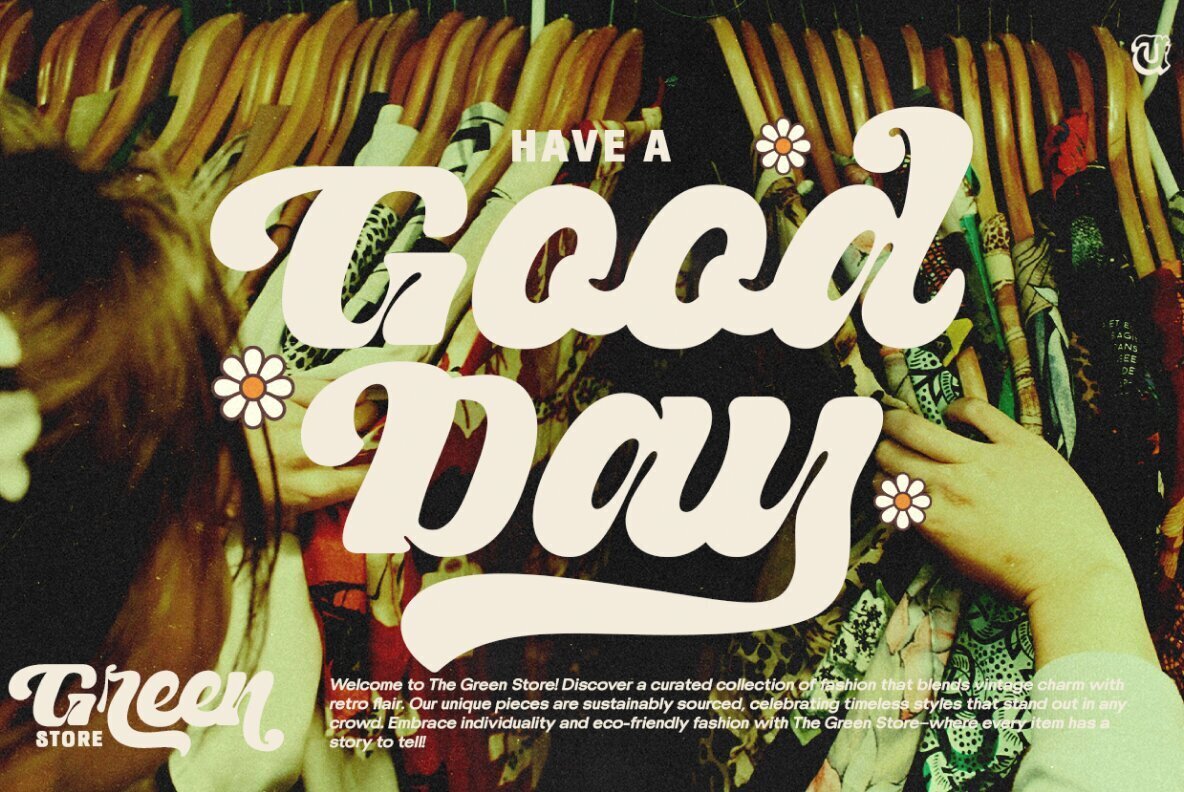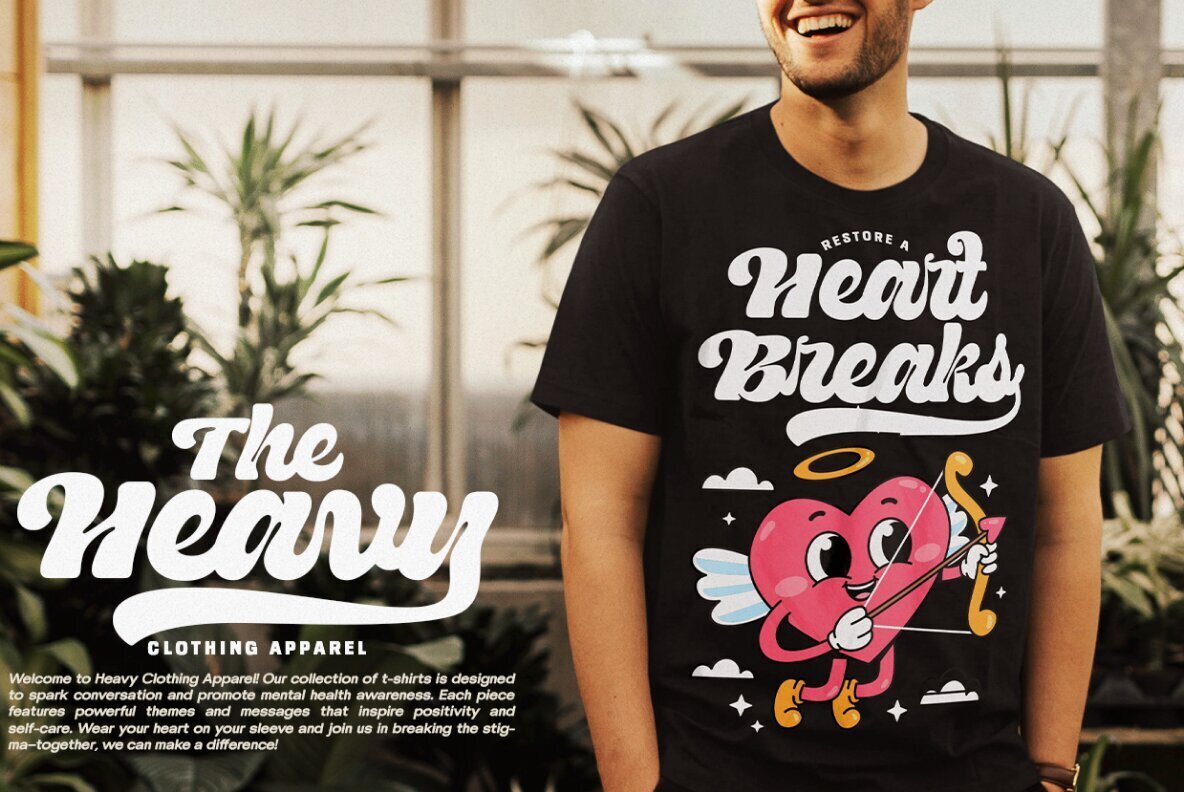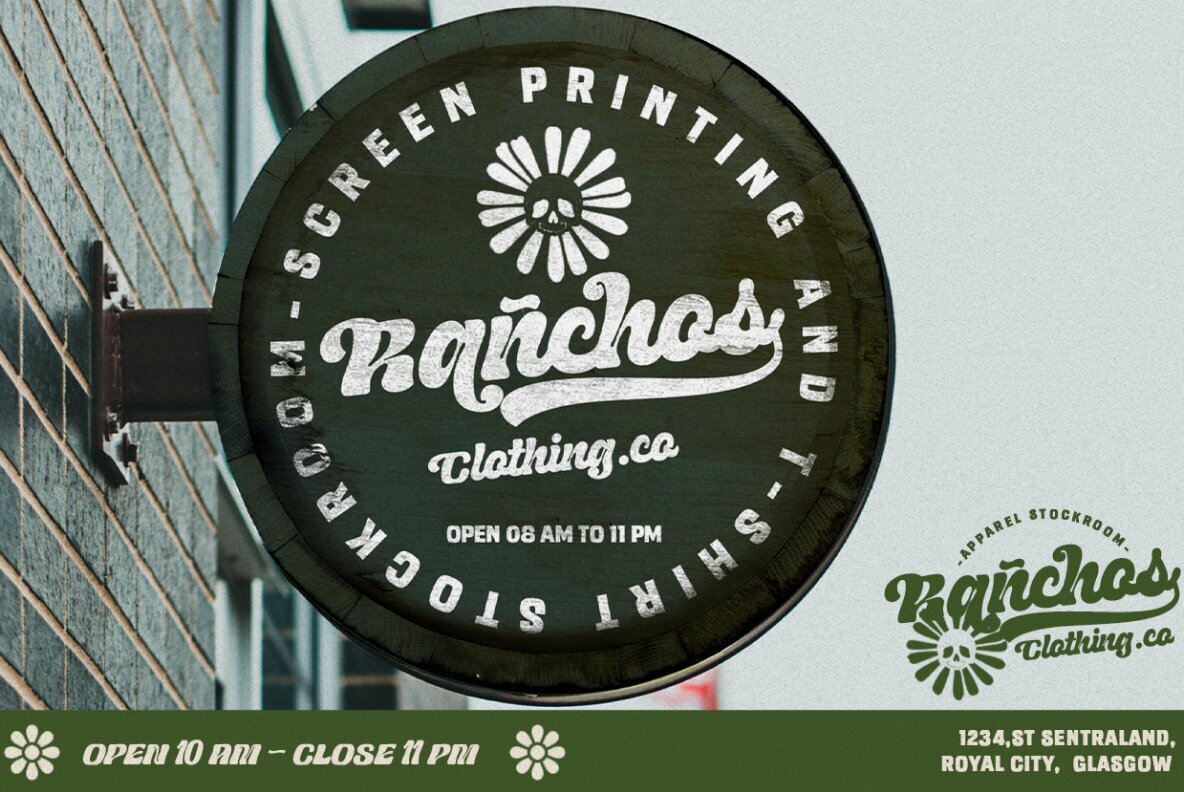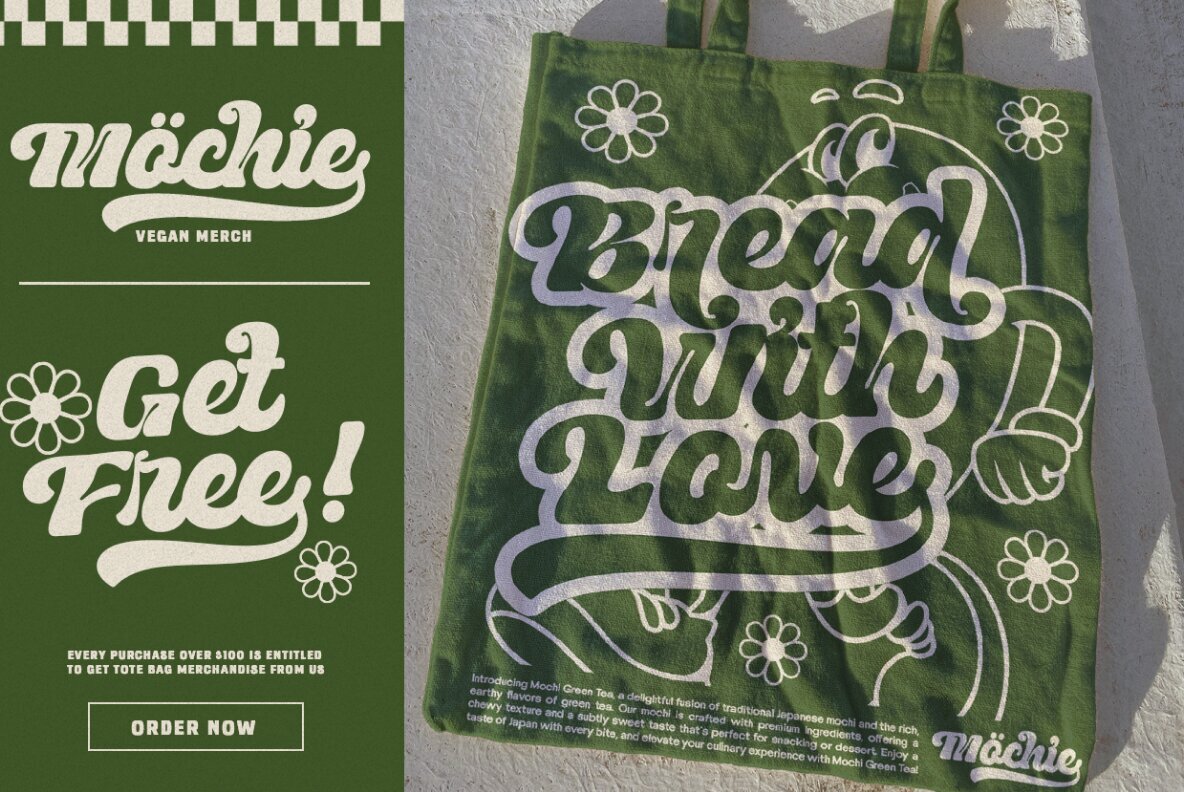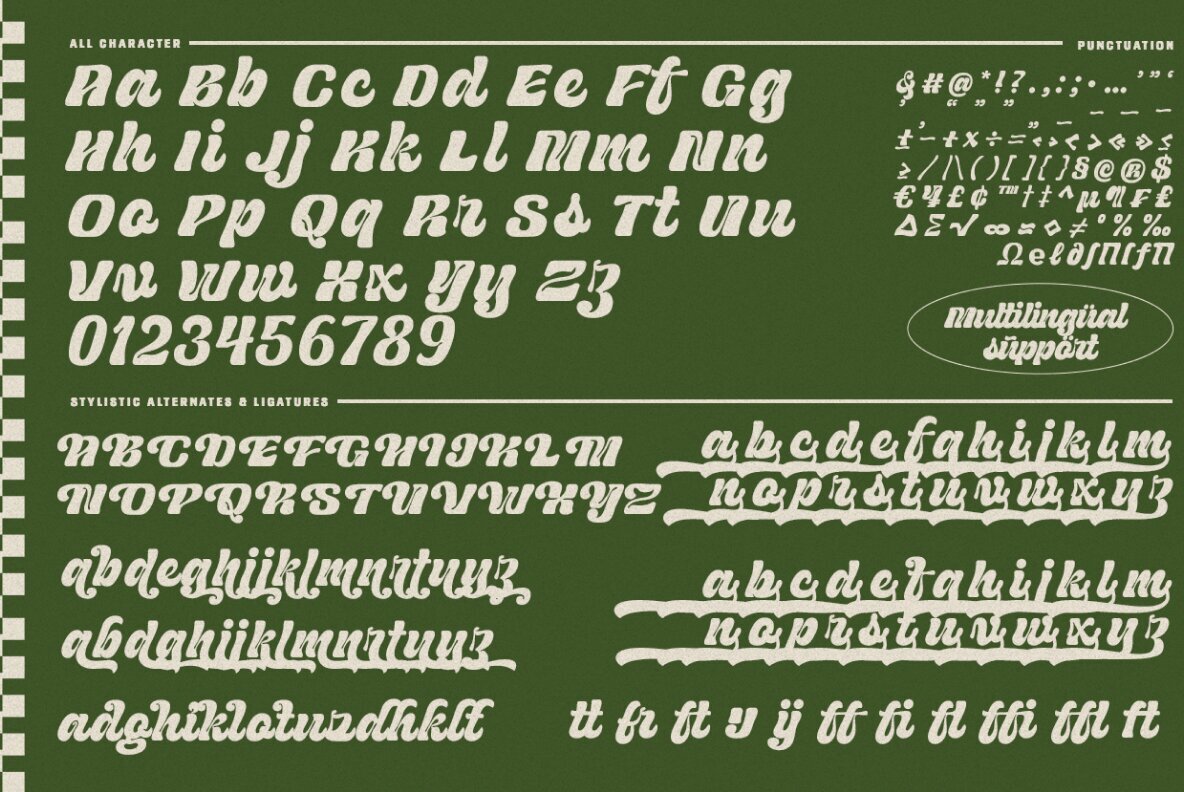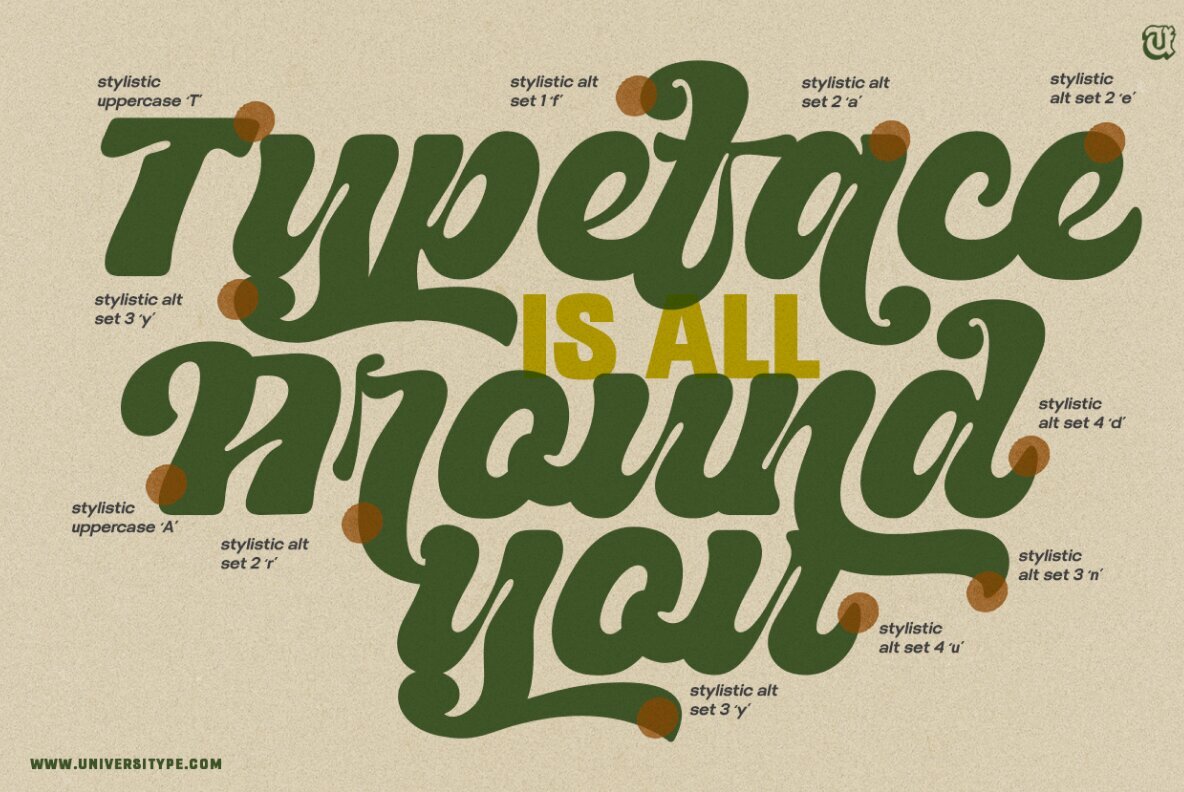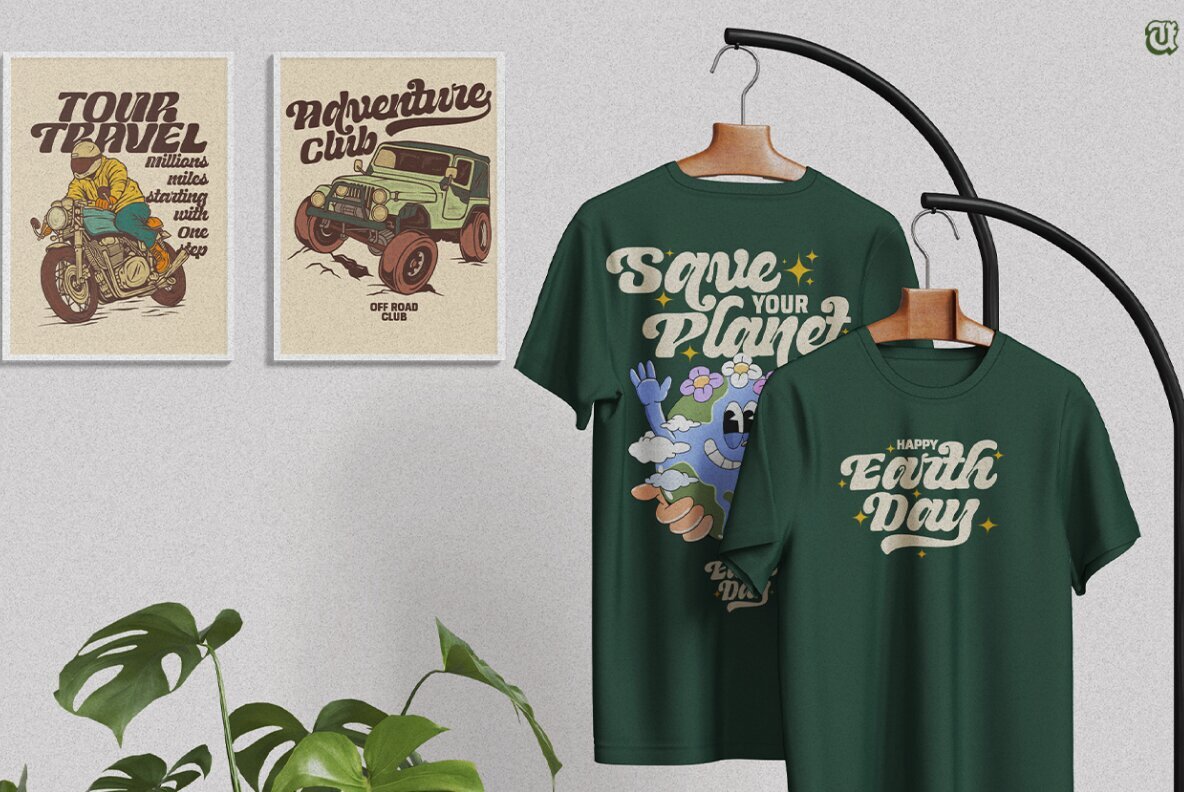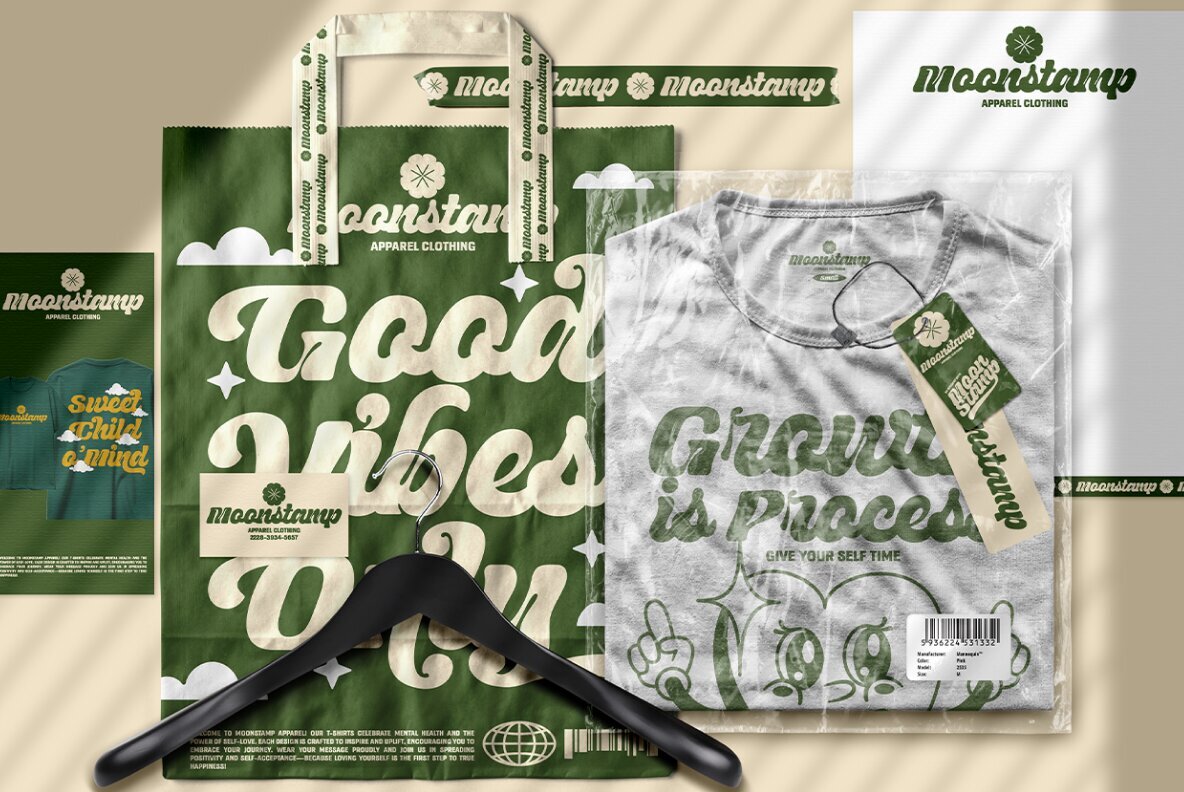
UT Rachoe captures a dynamic and flowing spirit, bringing an energetic and expressive personality to your designs. Like a rhythmic dance in type, it strikes the perfect balance between charm and sophistication, making it a go-to font for designers looking to convey elegance with a playful twist. This graceful script font is defined by its sweeping curves and decorative swashes. Its design radiates fluidity and movement, blending a hand-drawn aesthetic with a modern sensibility. The timeless yet contemporary feel makes it a versatile choice for projects that call for warmth, creativity, and personal expression. Target Audience: UT Rachoe is an excellent fit for designers, creative agencies, and DIY enthusiasts aiming to infuse their work with personality and flair. Its artistic nature makes it ideal for branding, boutique logos, invitations, or any project where an elegant, handcrafted touch is desired. Key Features: Usage Ideas: UT Rachoe shines in projects where individuality and sophistication are essential. Whether it's for luxurious wedding invitations, custom stationery, feminine branding, or artisanal packaging, this font adds a signature touch. It’s also well-suited for magazine headers and stylized quotes, ensuring your text stands out with elegance and charm. What makes it Unique? UT Rachoe's graceful, handcrafted strokes give it a distinctive personality, and its versatility across various sizes makes it suitable for both bold headings and refined signatures. Its combination of artistic flair and practical usability makes it a standout choice for web, print, and beyond. This font is designed to evoke emotion, blending creativity with functionality, perfect for any project that needs to leave a stylish, lasting impression.